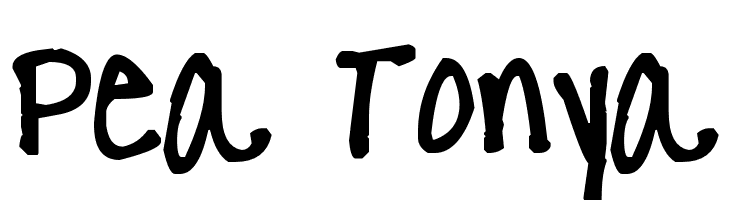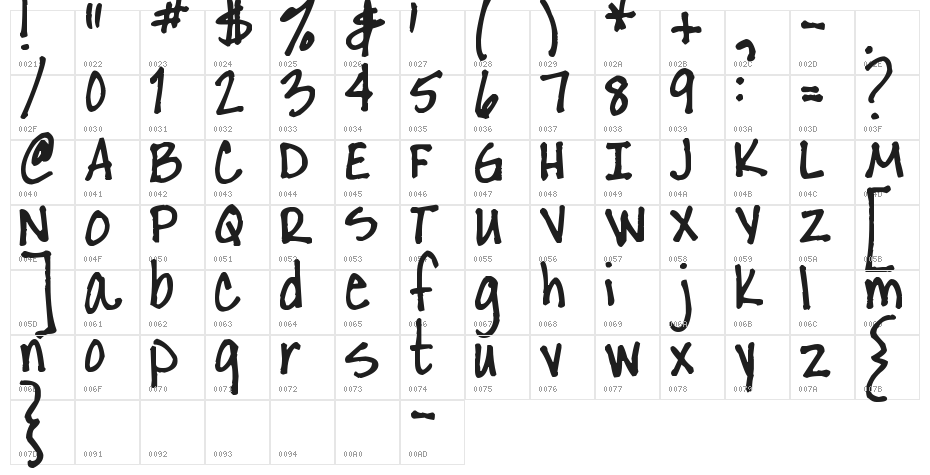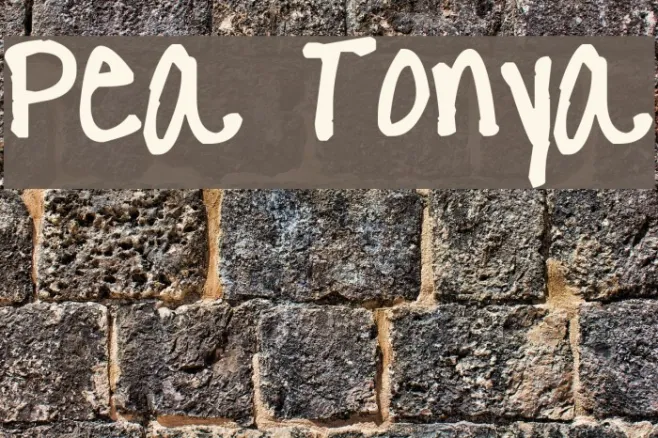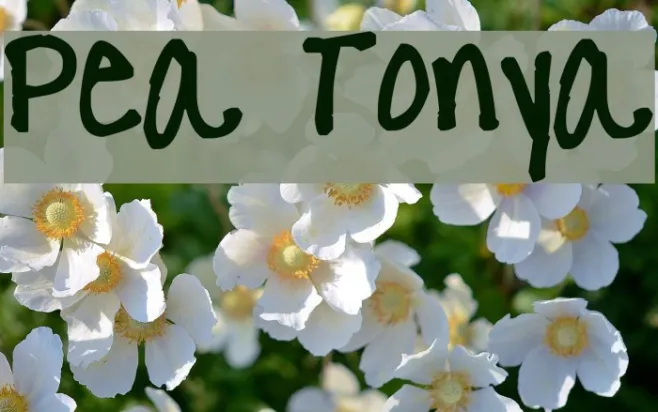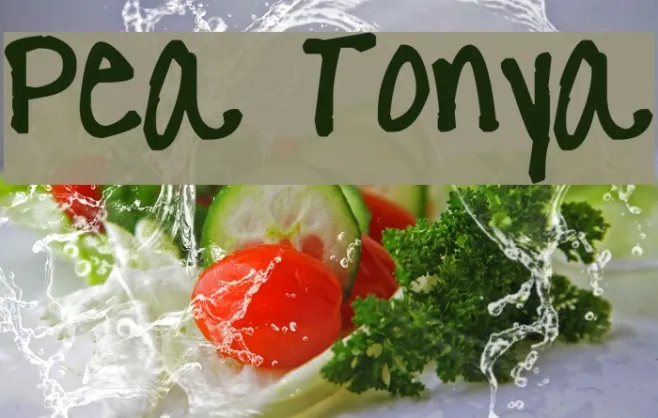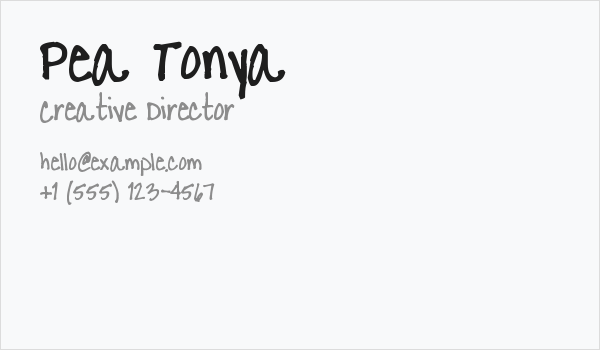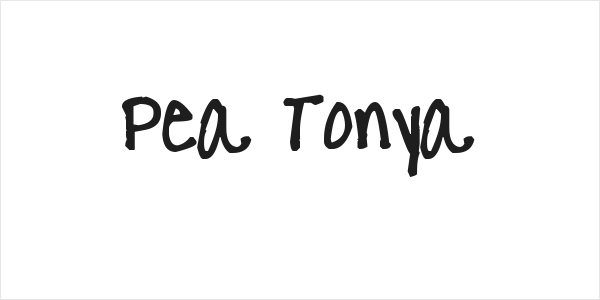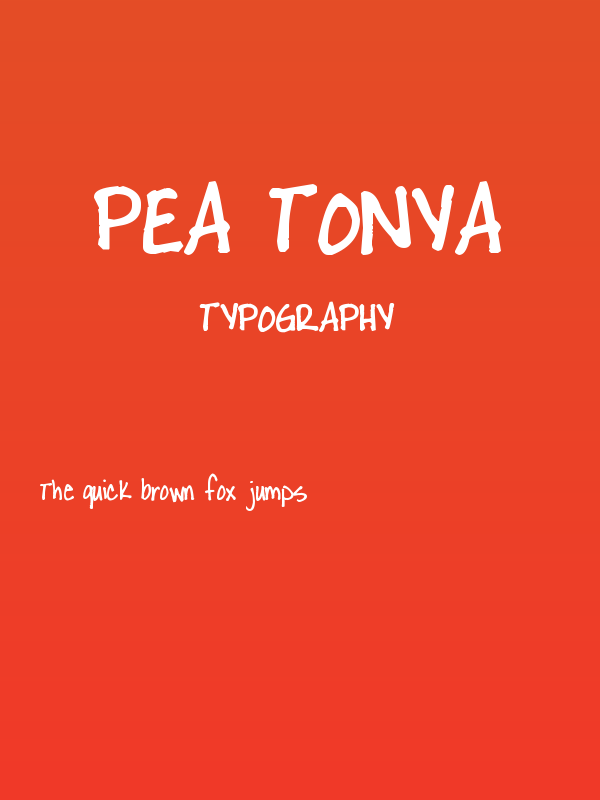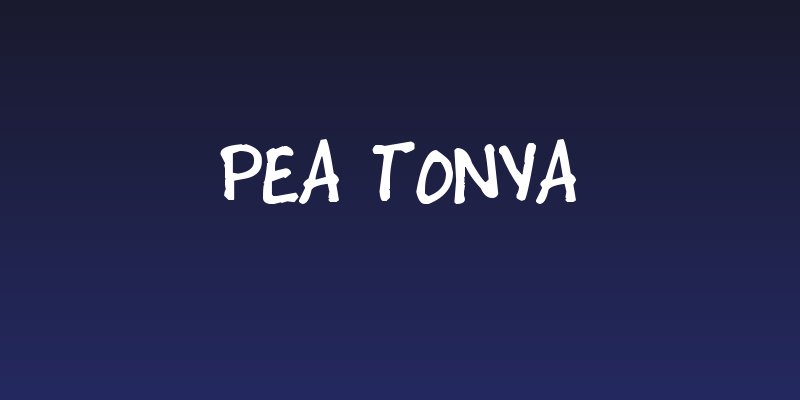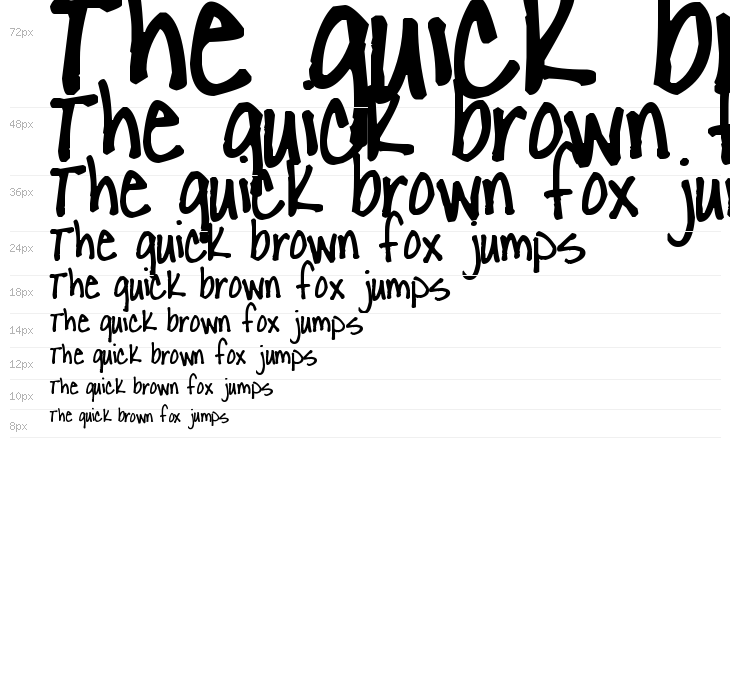
Pea Tonya Font
Pea Tonya Description
This font features a playful and casual handwritten style, characterized by its bold and slightly irregular strokes. The letters have a natural flow, mimicking the look of a marker or brush pen. The uppercase and lowercase letters maintain a consistent style, with rounded edges and a slight slant, adding to its informal and approachable appearance. The numerals and special characters follow the same aesthetic, ensuring a cohesive look across all text. This font's energetic and friendly vibe makes it suitable for projects that require a personal touch.
| Proposed Projects | Ideal for greeting cards, children's books, casual branding, and social media graphics. |